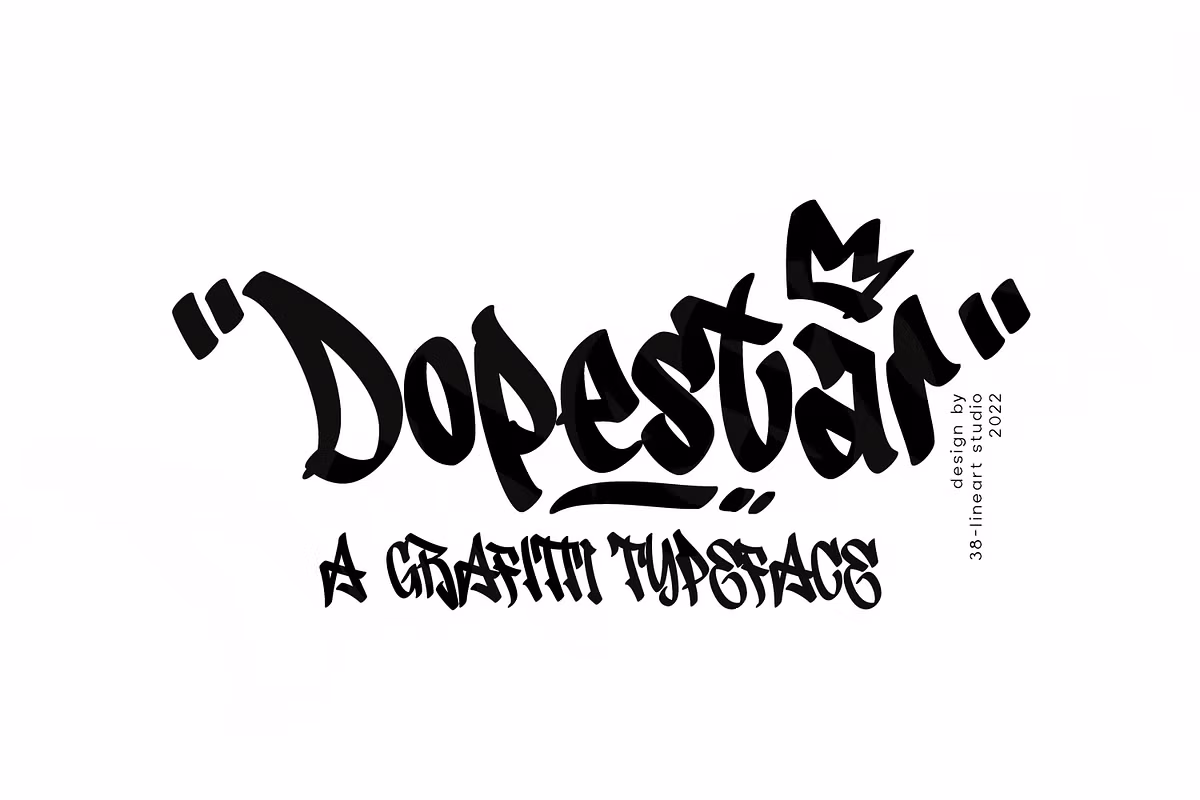
Urban, edgy, and bursting with attitude, Dopestar - Graffiti Typeface Free Download is a bold display font that captures the raw energy of street art. Perfect for posters, music covers, apparel, skate brands, and youth-focused designs, this typeface brings a rebellious, expressive style to your creative projects.
With wild strokes, dynamic shapes, and an authentic spray-paint vibe, Dopestar adds movement and personality to every letter. It’s designed for creatives who want their typography to stand out and speak loud—just like a mural on a city wall.